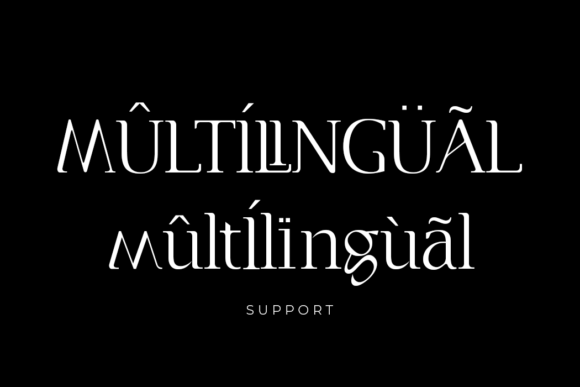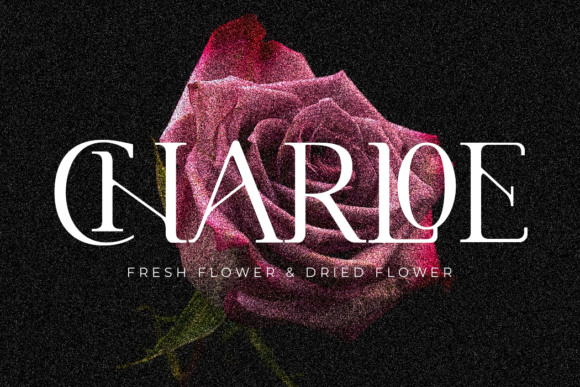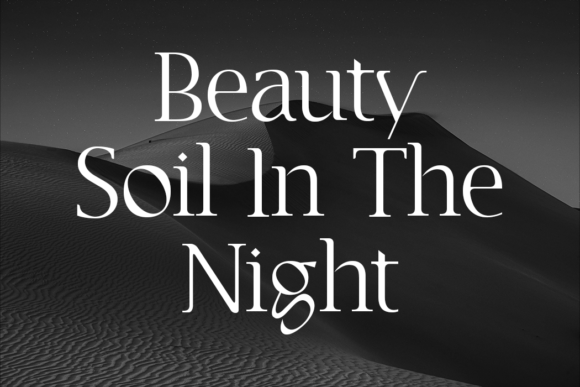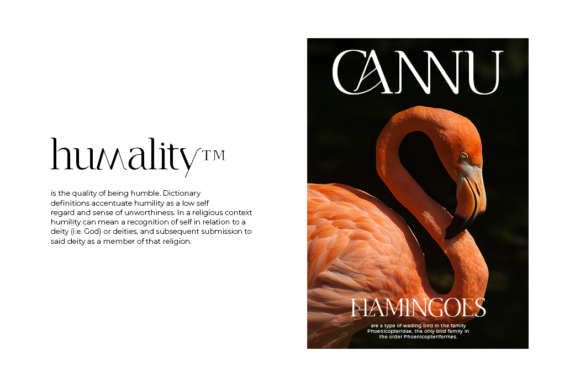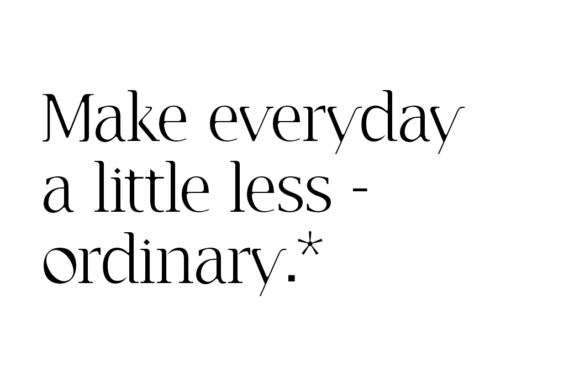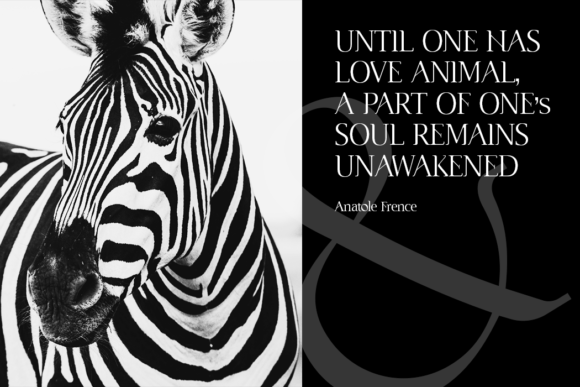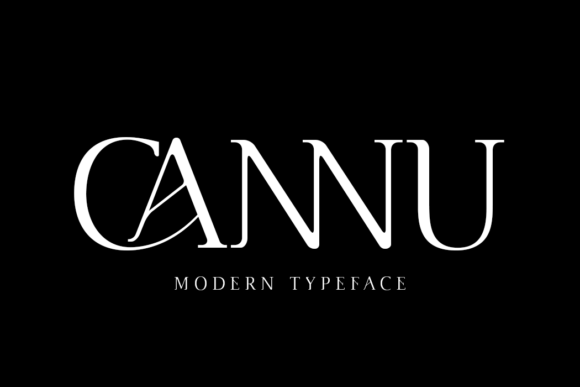
Cannu Font: The Ultimate Choice for Modern Designers
In the world of graphic design, fonts play a crucial role in conveying the message and aesthetic of a brand or project. With numerous font options available, finding the perfect one that embodies modernity, elegance, and versatility can be a daunting task. However, if you’re looking for a font that ticks all these boxes, look no further than Cannu Font. In this article, we’ll explore the features and benefits of Cannu Font, and why it’s becoming the go-to choice for designers and crafters alike.
What is Cannu Font?
Cannu Font is a modern serif font that exudes cleanliness, minimalism, and sophistication. Its sleek and elegant design makes it an ideal choice for those seeking a font that can elevate their graphic design projects. Whether you’re working on a logo, branding materials, business cards, or social media graphics, Cannu Font is the perfect companion to help you achieve your design goals.
Key Features of Cannu Font
- Modern and Elegant Design: Cannu Font boasts a contemporary design that is both stylish and refined, making it perfect for designers who want to create stunning visual content.
- PUA Encoded: This font is PUA (Private Use Area) encoded, which means you can easily access all the glyphs and swashes, giving you greater flexibility and creative control.
- Versatile and Adaptable: Cannu Font is suitable for a wide range of graphic design projects, including logos, branding materials, business cards, gift cards, t-shirts, covers, thumbnails, prints, posters, photography, quotes, and more.
- Clean and Minimalist: The font’s clean and minimalist design ensures that your message is conveyed clearly and effectively, without any distractions.
Benefits of Using Cannu Font
Cannu Font offers numerous benefits to designers and crafters, including:
- Enhanced Creativity: With Cannu Font, you can unleash your creativity and produce stunning visual content that stands out from the crowd.
- Time-Saving: The font’s versatility and adaptability save you time and effort, as you can use it for multiple projects without needing to search for alternative fonts.
- Professional Results: Cannu Font helps you achieve professional-looking results, even if you’re not a seasoned designer.
Who Can Benefit from Cannu Font?
Cannu Font is an excellent choice for:
- Graphic Designers: Whether you’re working on a client’s project or your own, Cannu Font is a great addition to your font library.
- Crafters: If you’re into crafting, scrapbooking, or DIY projects, Cannu Font can add a touch of elegance and sophistication to your creations.
- Small Business Owners: Cannu Font is perfect for small business owners who want to create professional-looking branding materials without breaking the bank.
- Social Media Influencers: If you’re a social media influencer, Cannu Font can help you create stunning visual content that resonates with your audience.
In conclusion, Cannu Font is a modern serif font that offers a unique blend of elegance, versatility, and creativity. Its clean and minimalist design makes it perfect for a wide range of graphic design projects, from logos and branding materials to social media graphics and crafts. With its PUA encoding and ease of use, Cannu Font is an excellent choice for designers and crafters of all skill levels. Whether you’re looking to elevate your design game or simply want a reliable font for your projects, Cannu Font is definitely worth considering.
Get Ready to Elevate Your Design with Cannu Font
Ready to experience the benefits of Cannu Font for yourself? Download it today and discover a world of creative possibilities. With Cannu Font, you can:
- Create stunning visual content that captivates your audience
- Elevate your brand’s aesthetic and messaging
- Save time and effort with a versatile and adaptable font
- Unleash your creativity and produce professional-looking results